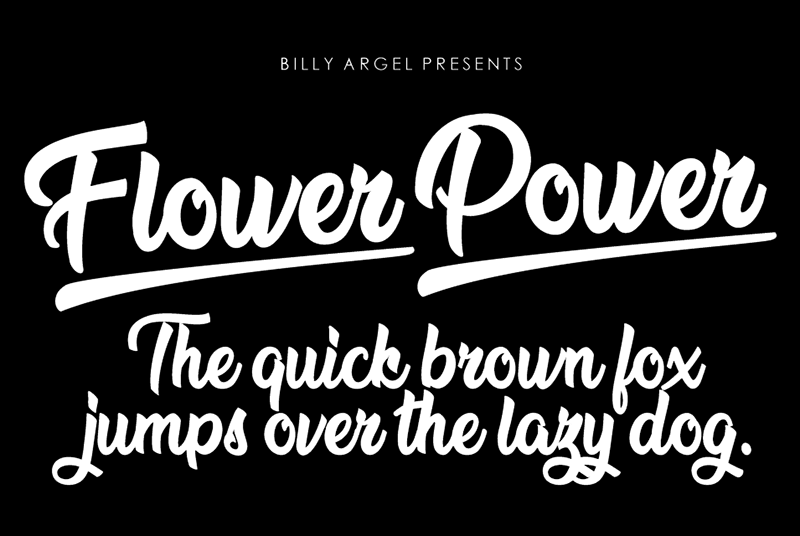
Free Flower Power Handpainted Sign Font
Featuring the breathtaking free flower power handpainted sign font. This font file was found from the amazing source called Dafont. This is absolutely fancy font so you can easily make world-class designs.